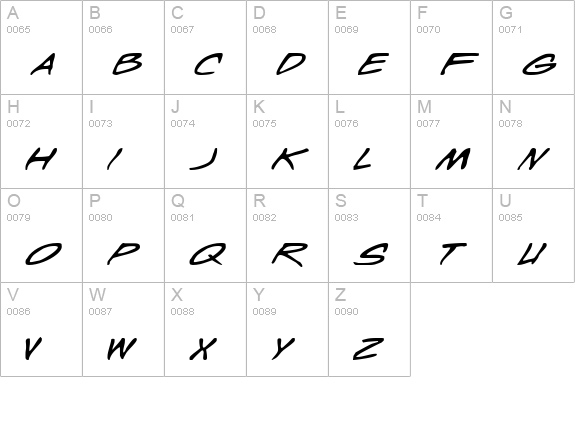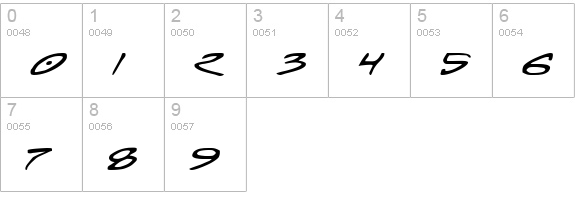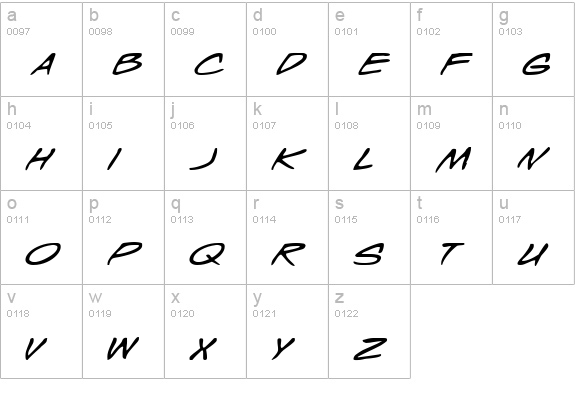
Wyld Stallyns Extended Font Details
Wyld Stallyns Extended is a distinctive, extended-width variant in the Wyld typeface family \xE2\x80\x94 well suited to design and typography projects.